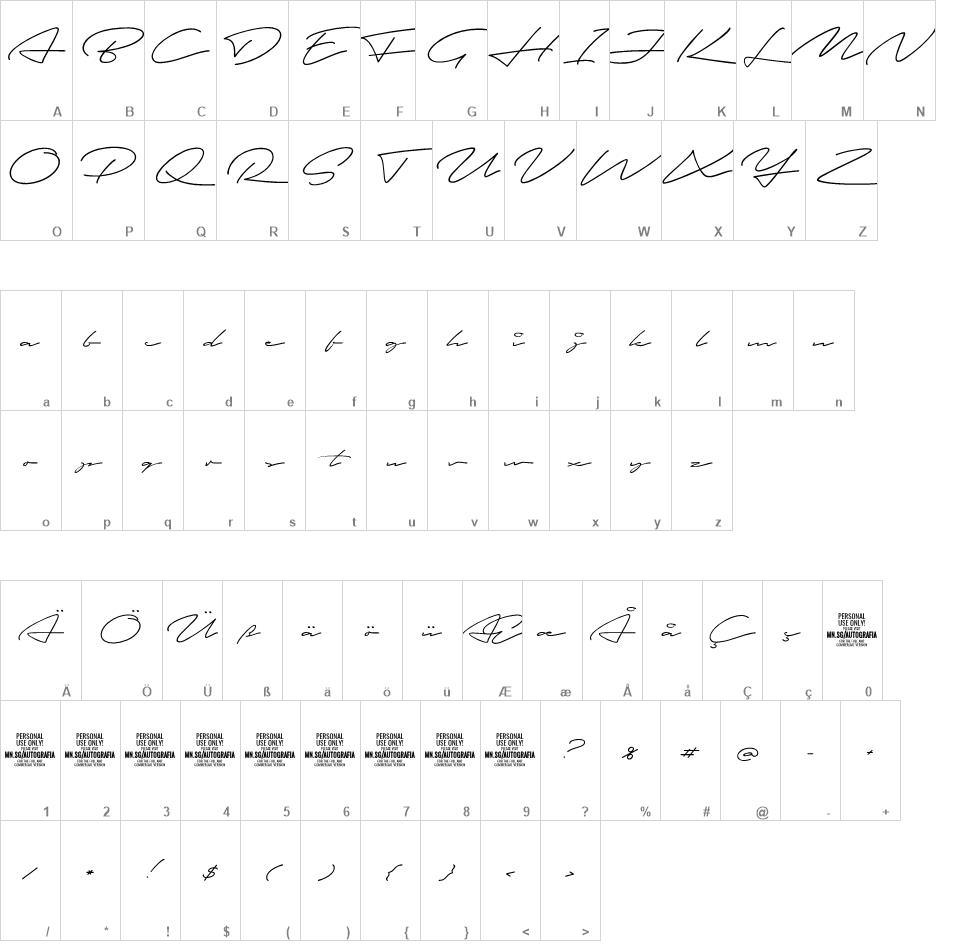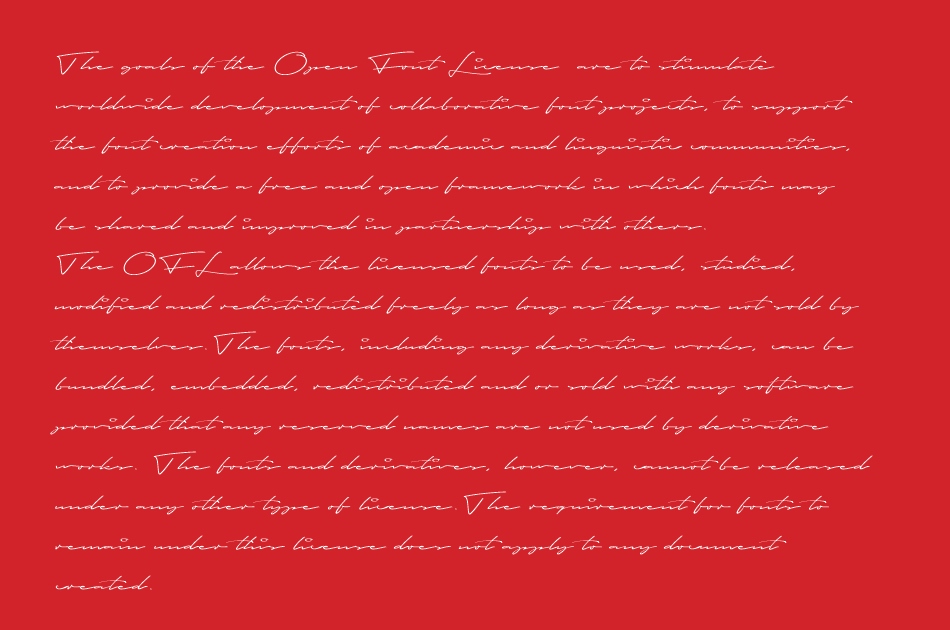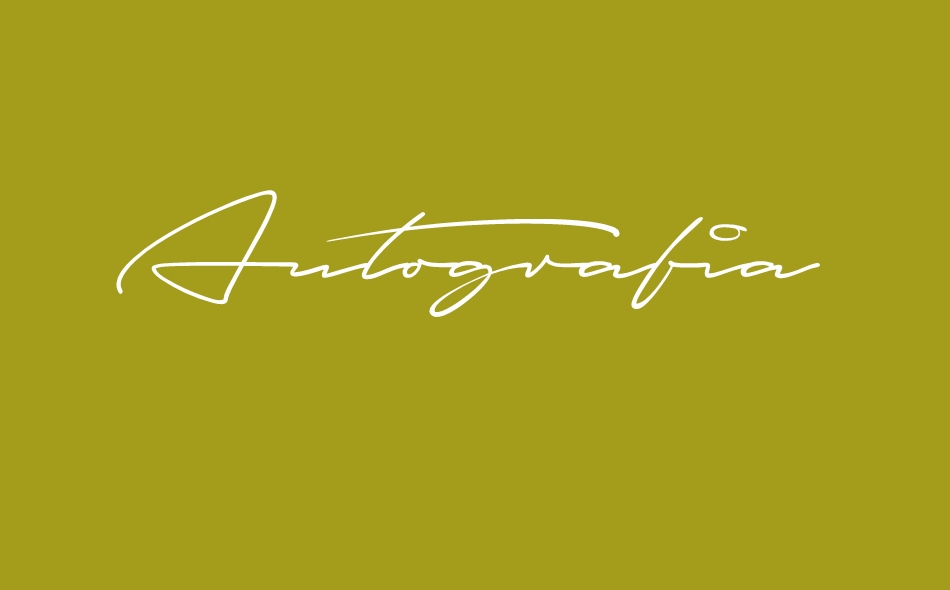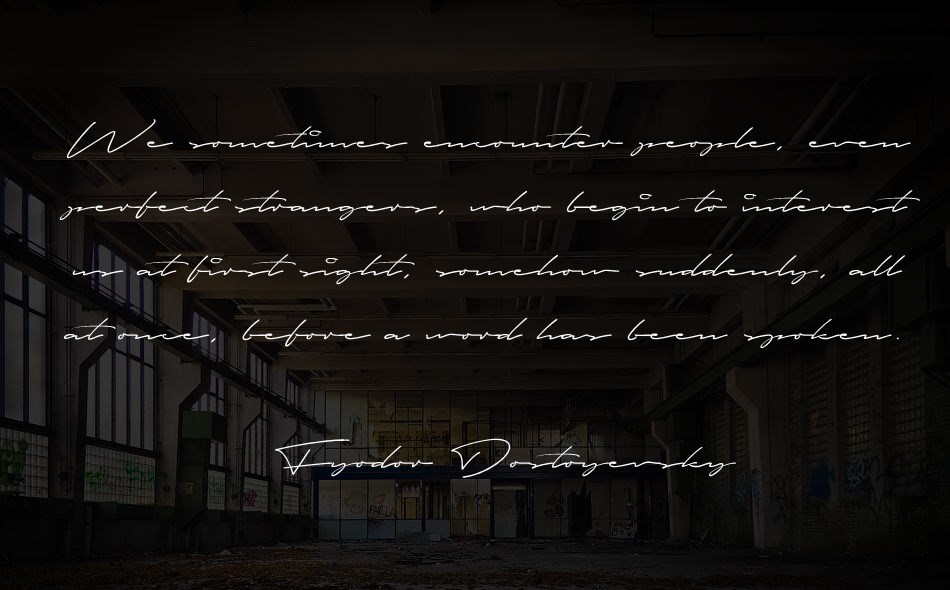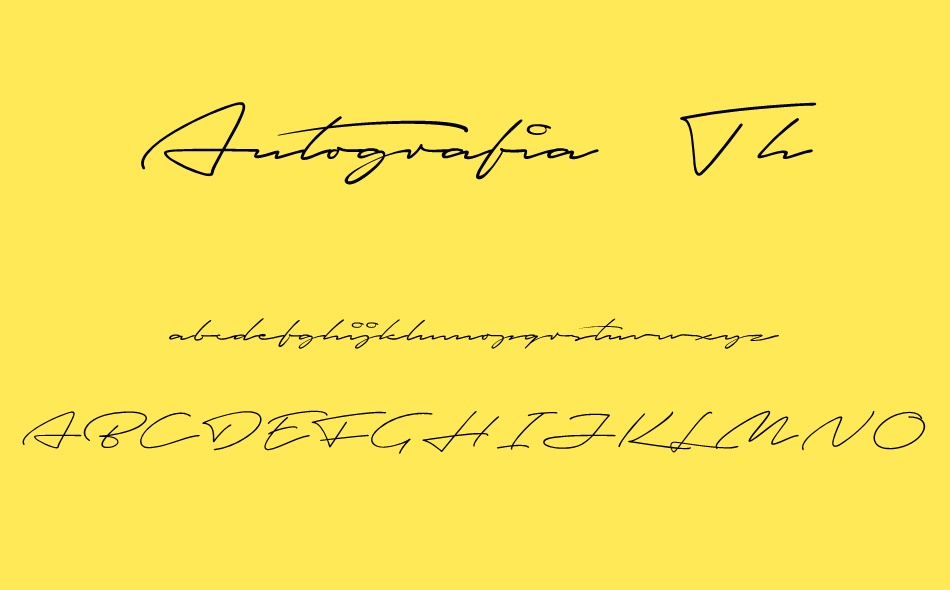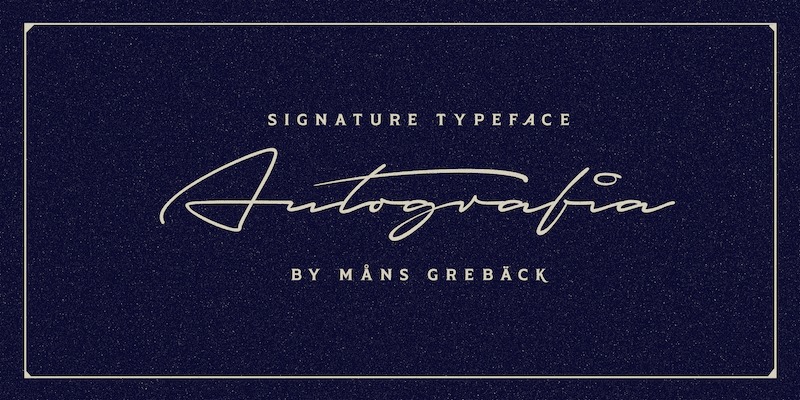
Autografia font
Use underscore _ anywhere in a word to make an underline.
Example: Sign_ature
Use multiple underscores for different underlines.
Example: Hand_____writing
Autografia is a high-quality signature typeface.
The typeface family is provided in five weights: Thin, Light, Medium, Bold and Black. The weights compliment each other and makes for a truly formative script typeface, to be used in any context and with the right assertion.
Autografia's large, round capital letters contrast against its short and streamlined lower case, resulting in a characteristic autograph style.
The font is built with advanced OpenType functionality and has a guaranteed top-notch quality, containing stylistic and contextual alternates, ligatures and more features; all to give you full control and customizability. It has extensive lingual support, covering all Latin-based languages, from North Europe to South Africa, from America to South-East Asia. It contains all characters and symbols you'll ever need, including all punctuation and numbers.